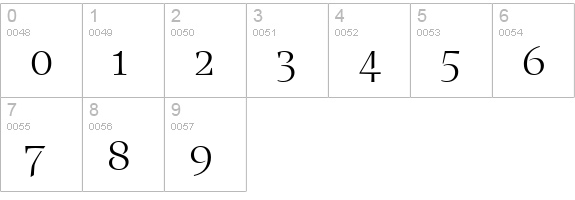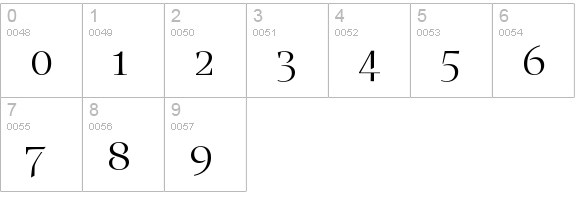
BlueIsland Font Details
BlueIsland font is a modern and stylish typeface that exudes elegance and sophistication. Its sleek lines and unique design make it perfect for a wide range of design projects, from branding to print materials. BlueIsland font is versatile and can be used for both headers and body text, adding a touch of class to any project. The best part about BlueIsland font is that it is completely free to download at FontsMarket.com. This means that you can elevate your designs without having to worry about breaking the bank. Whether you're working on a personal project or a client's work, BlueIsland font is a fantastic choice that will surely impress. Download it today and add a touch of sophistication to your designs!